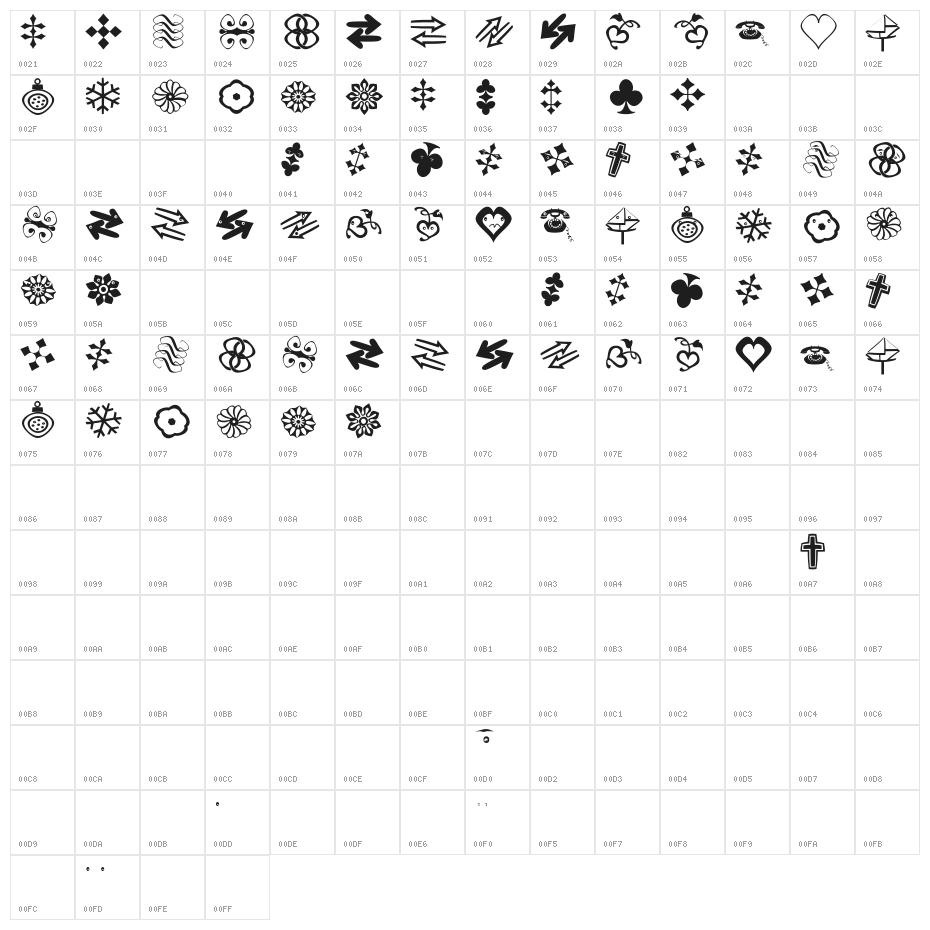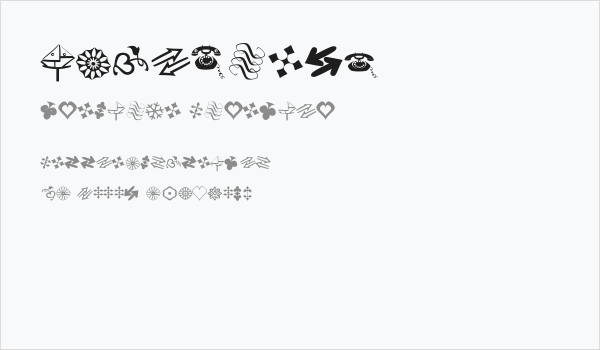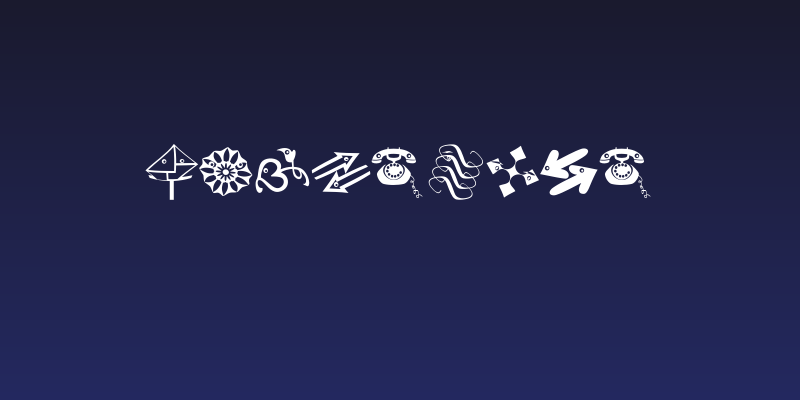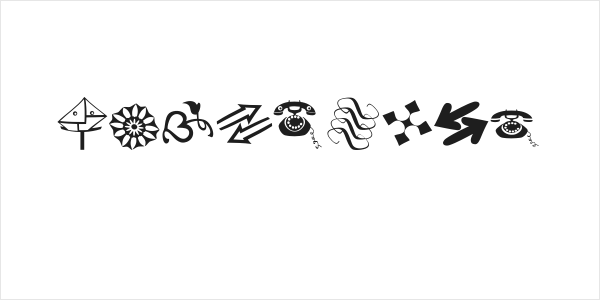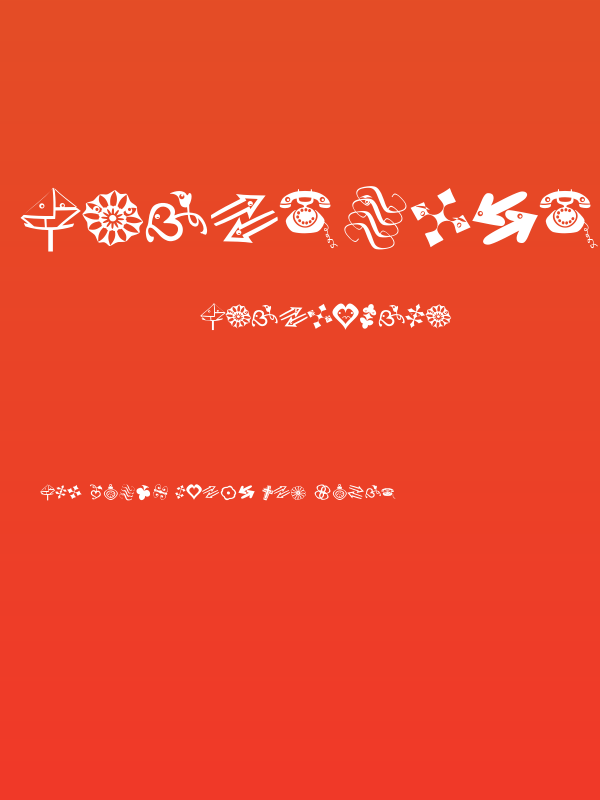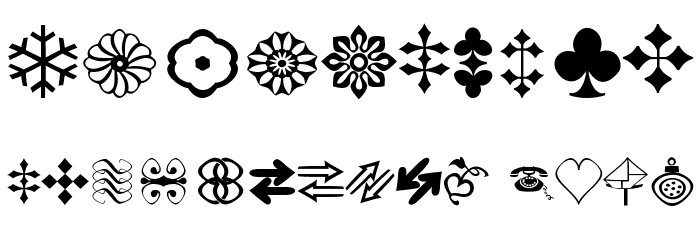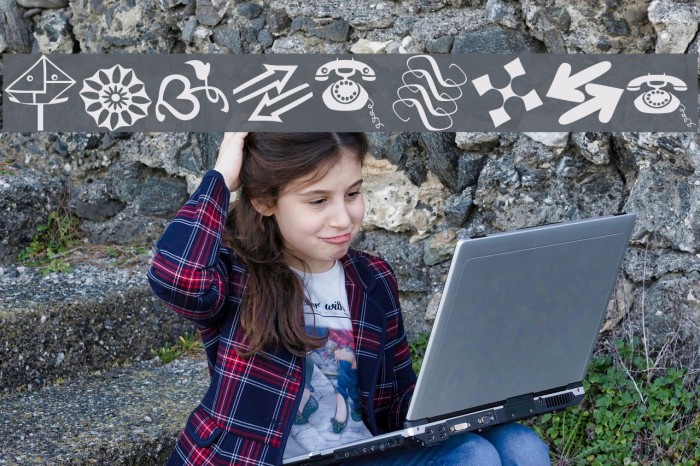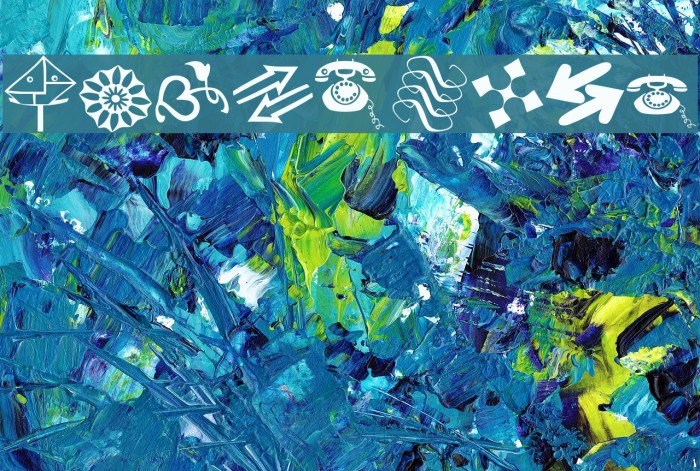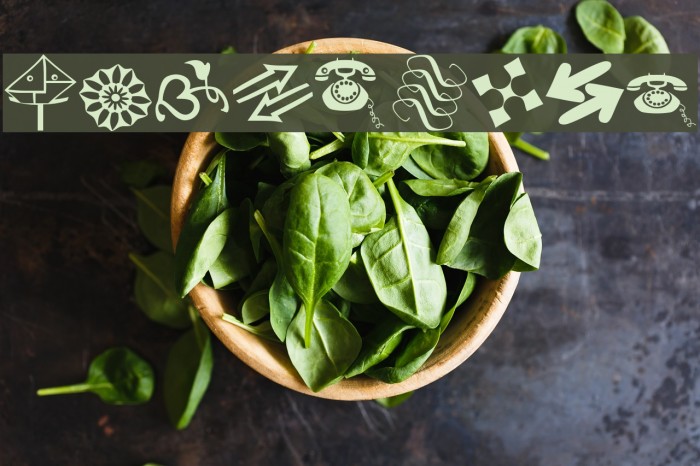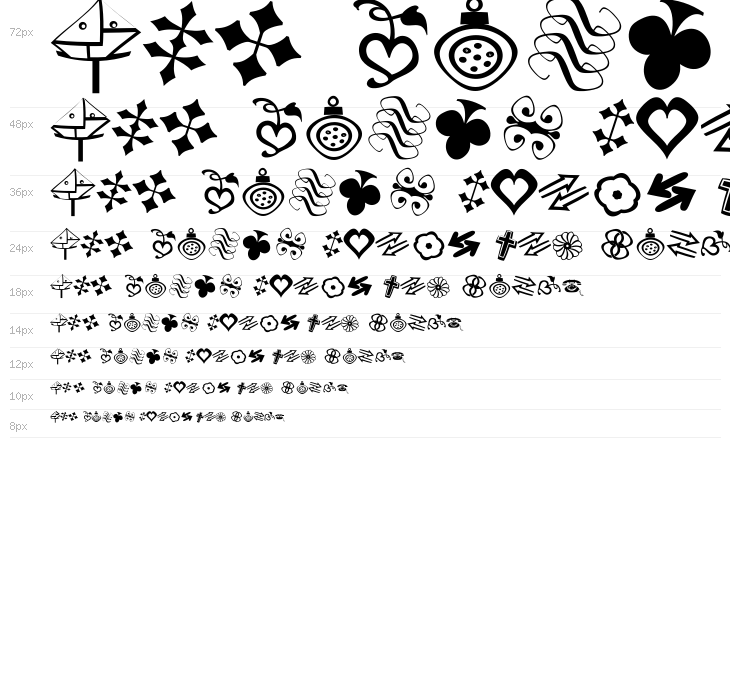
TypoSigns Font
TypoSigns Description
A decorative dingbat and symbol font featuring a variety of playful icons including arrows, flowers, hearts, clubs, telephones, and abstract shapes, rendered in bold black and outlined styles with high visual contrast.
| Overall Style | Decorative, Playful, Whimsical |
| Use Case | Icons, Borders, Decorative accents |
| Proposed Projects | Greeting cards, invitations, scrapbooking, playful branding, decorative borders, and creative posters. |